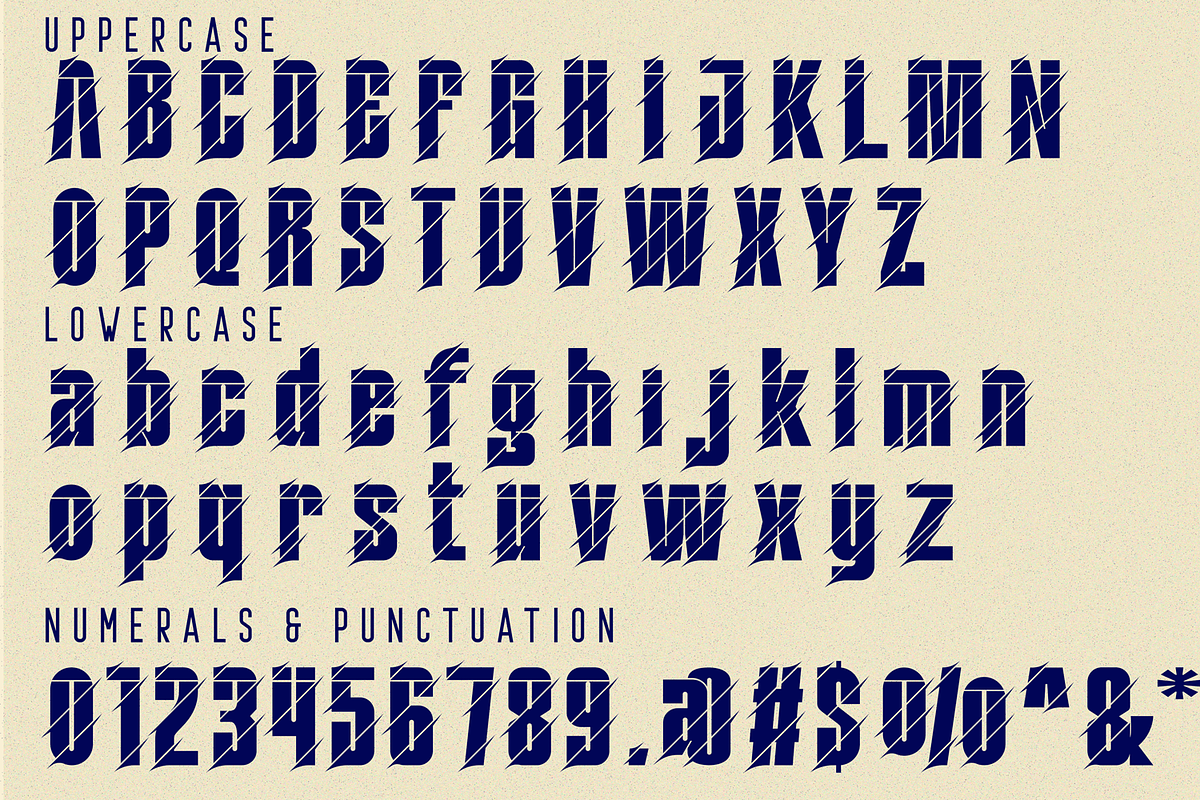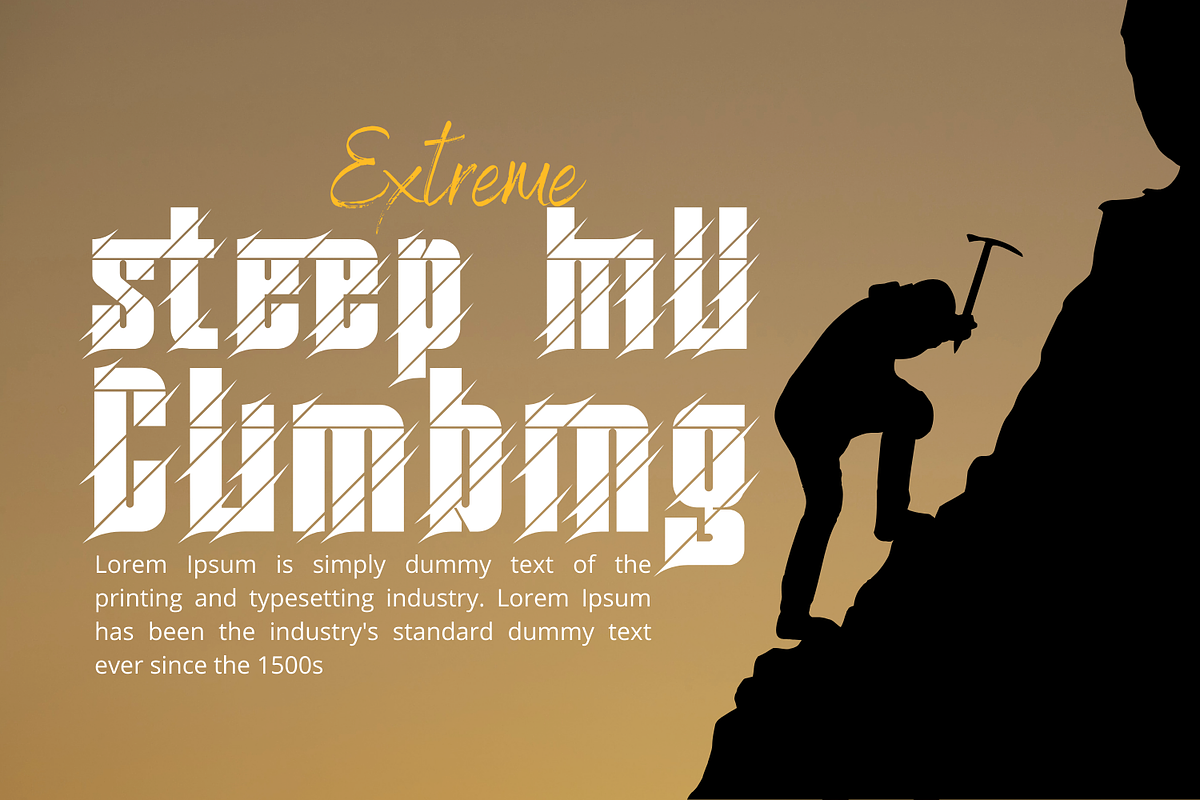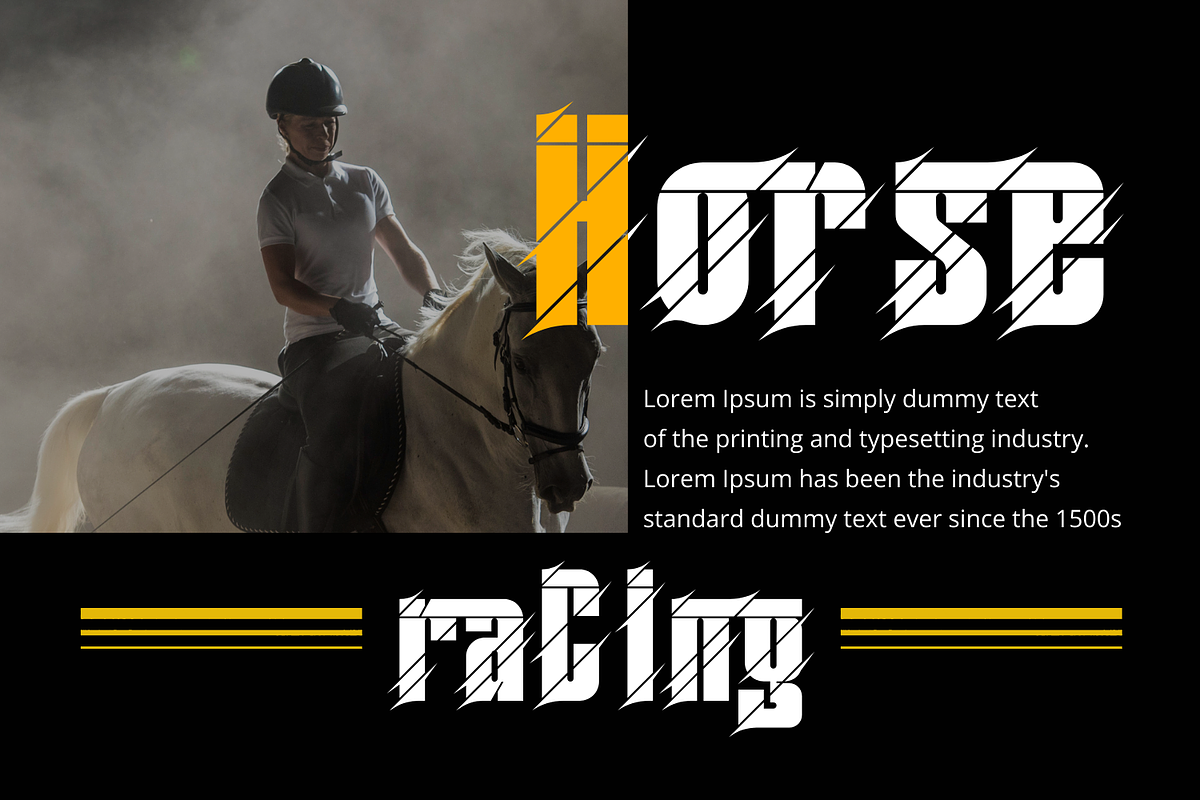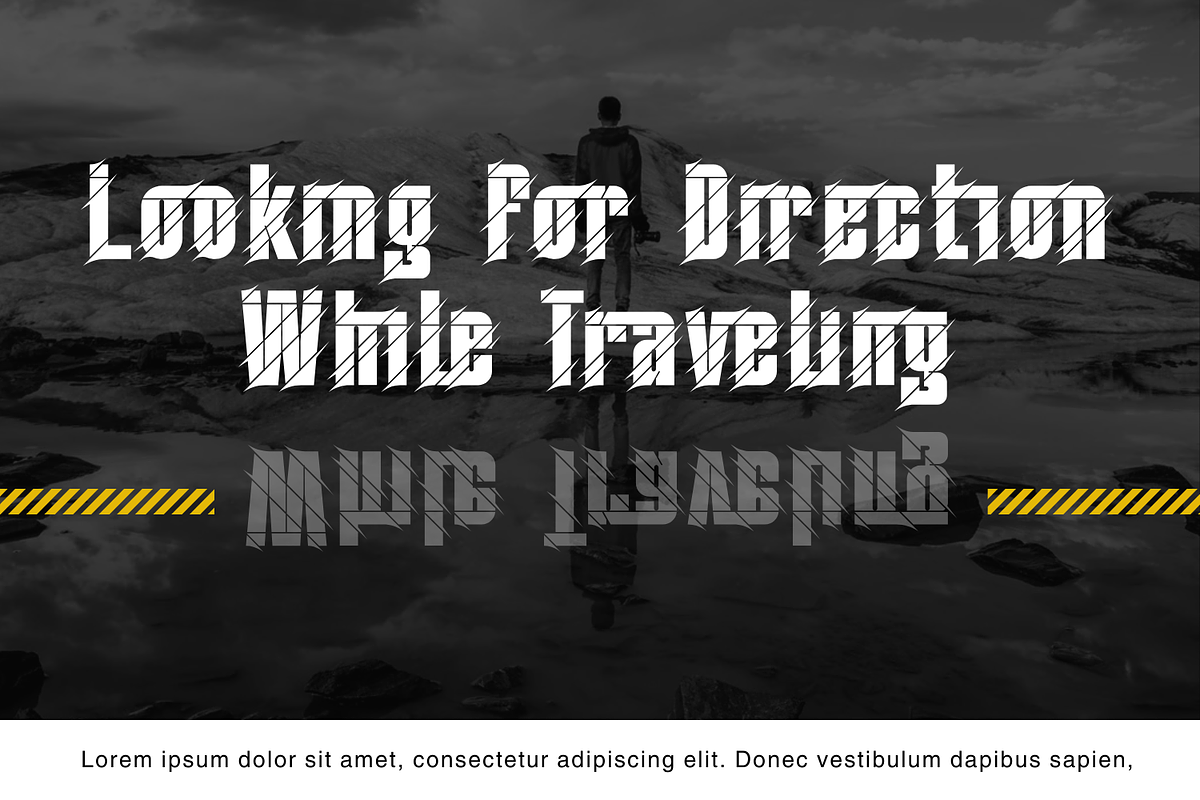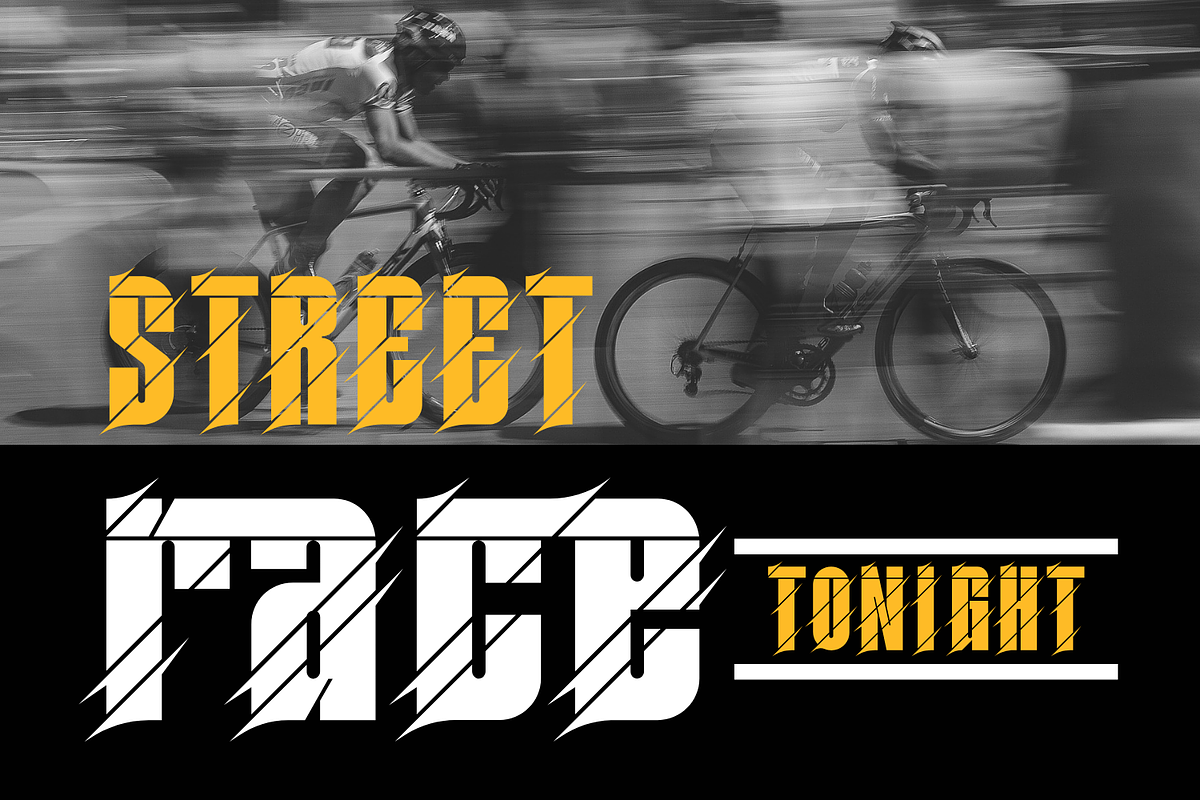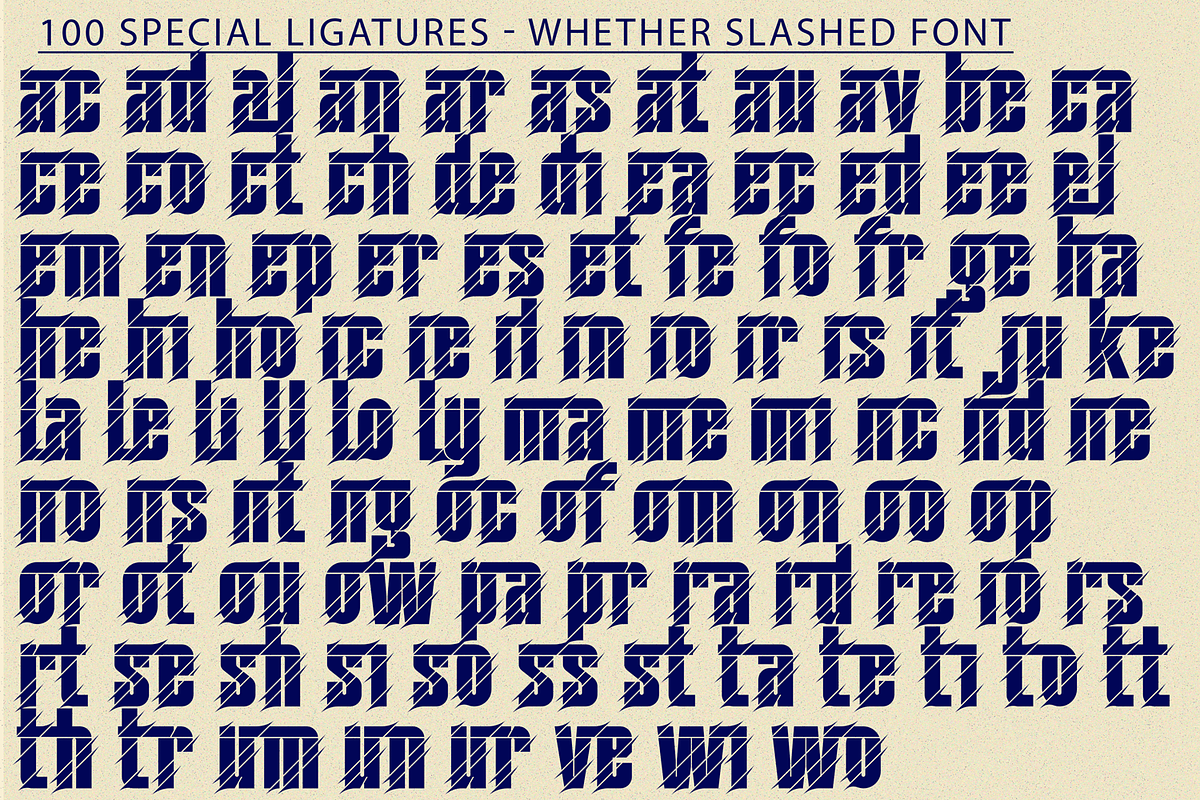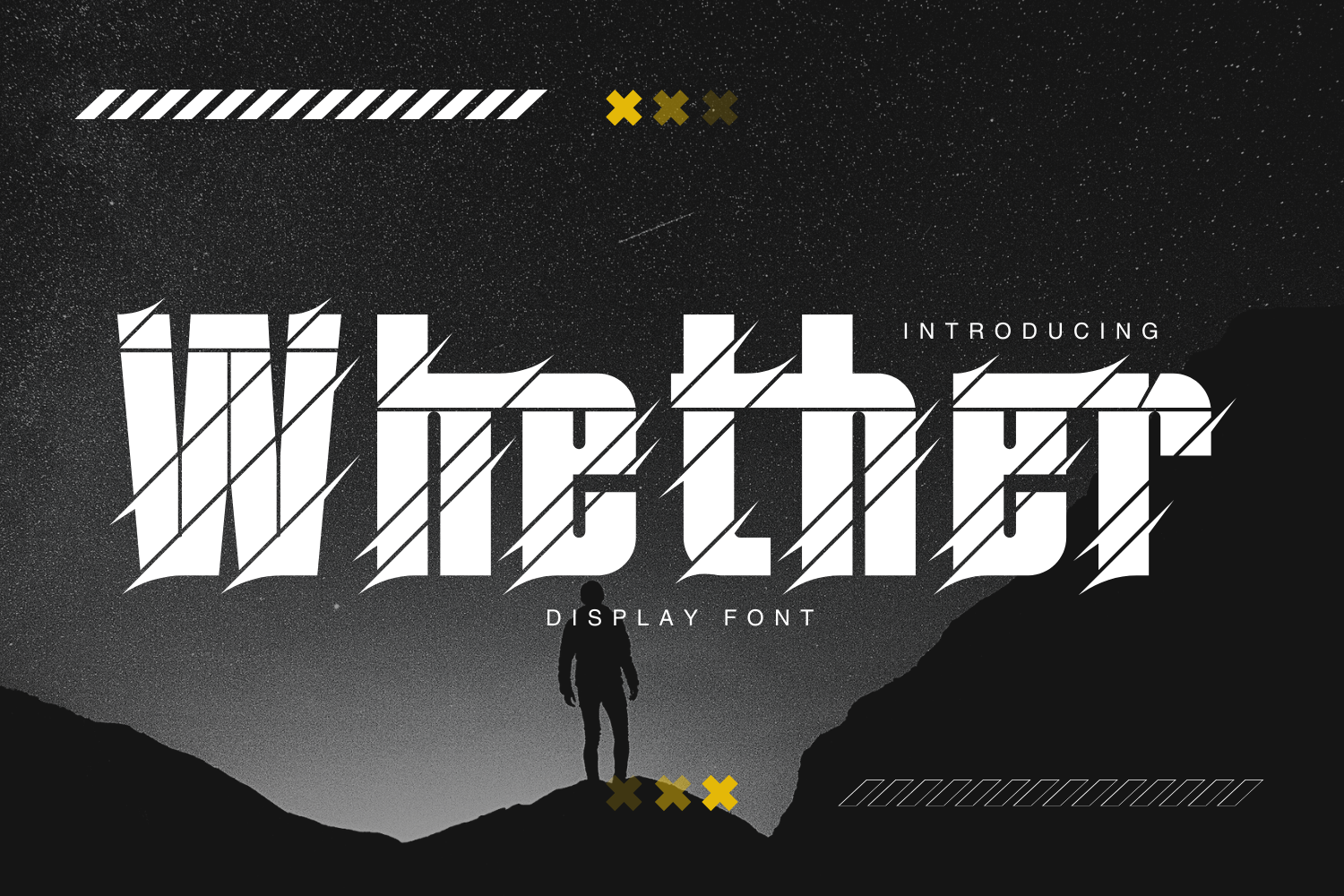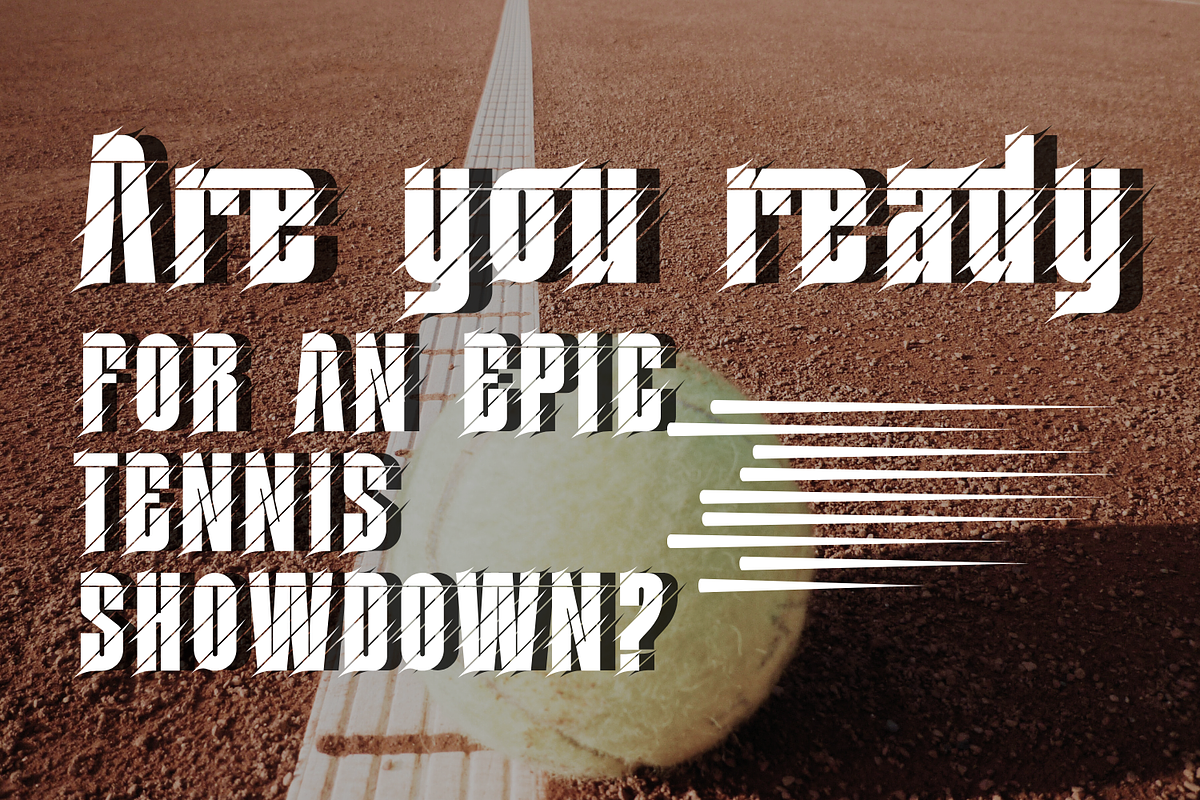
Whether Slashed Font
Whether Slashed Font - Unleash the Power of Motion and Speed – a dynamic, sporty font designed for those who crave action, speed, and innovation. This typeface is meticulously crafted to embody the essence of the automotive world, fitness, and cutting-edge technology. Ideal for fast auto racing sports, titles, logo, poster, headline, magazine, automotive games, monograms or other modern dynamic designs.
Whether Slashed was built with OpenType features and includes 100 ligatures, alternate, numbers, punctuation, and it also supports other languages.
ac ad al an ar as at au av be ca ce ch co ct de di ea ec ed ee el em en ep er es et fe fo fr ge ha he hi ho ie ic il in io ir is it ju ke la le li ll lo ly ma me mi nc nd ne ng no nt ns oc of om on oo op or ot ou ow pa pr ra rd re ri ro rs rt se sh si so ss st ta te th ti to tr tt um un ur ve wi wo
- Special Ligatures